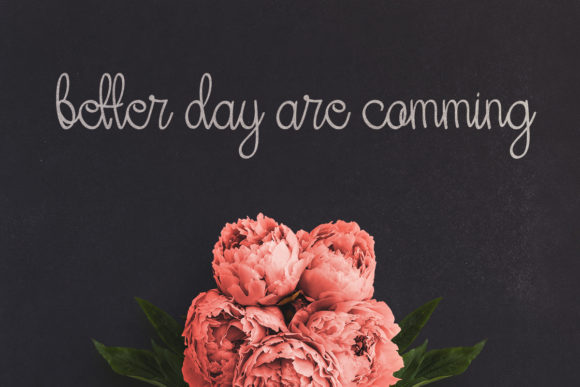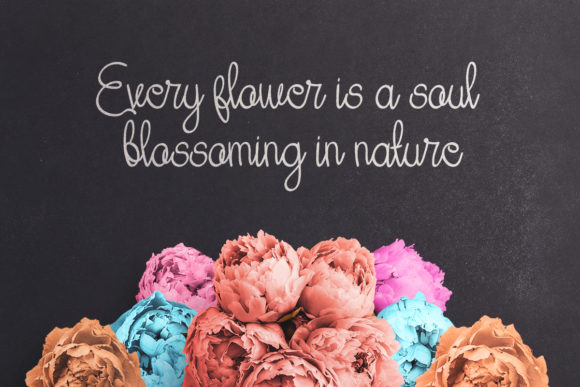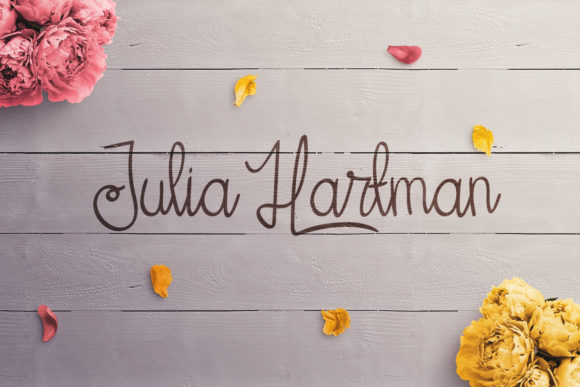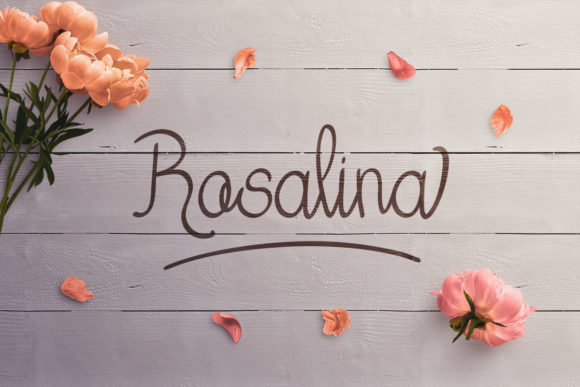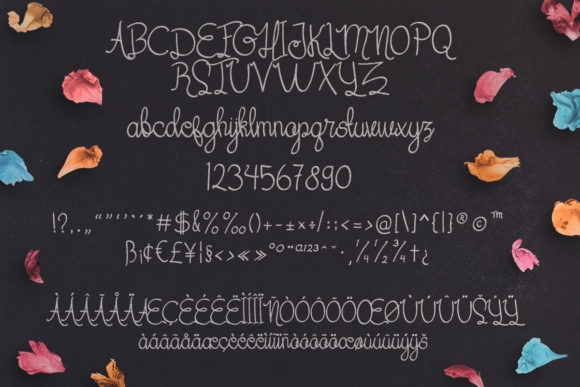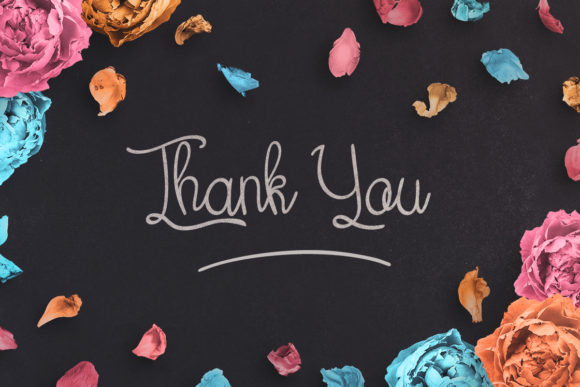
Introduction to Her Garden Font Font
Fonts play a crucial role in design, and the Her Garden Font font is a typeface that brings both character and versatility to any project. Whether you’re working on a branding project, a website, or a print design, the Her Garden Font font offers a unique style that can elevate your work.
Her Garden is a beautiful handwritten script font.
It includes elegant curves and additional swashes It can be used for lettering, signature, branding, logotype, magazine, poster, and any other design which needs an elegant typeface.
Key Features of Her Garden Font Font
Why Choose Her Garden Font Font?
The Her Garden Font font is more than just a typeface – it’s a design tool that helps you communicate your message with style and clarity. Its unique character set and versatile design make it suitable for a wide range of applications, from elegant invitations to bold headlines.
With its carefully crafted letterforms and balanced proportions, the Her Garden Font font ensures readability and visual appeal across all mediums.
What makes Her Garden Font font special?
The Her Garden Font font stands out with its unique design, exceptional readability, and versatility across various design applications.